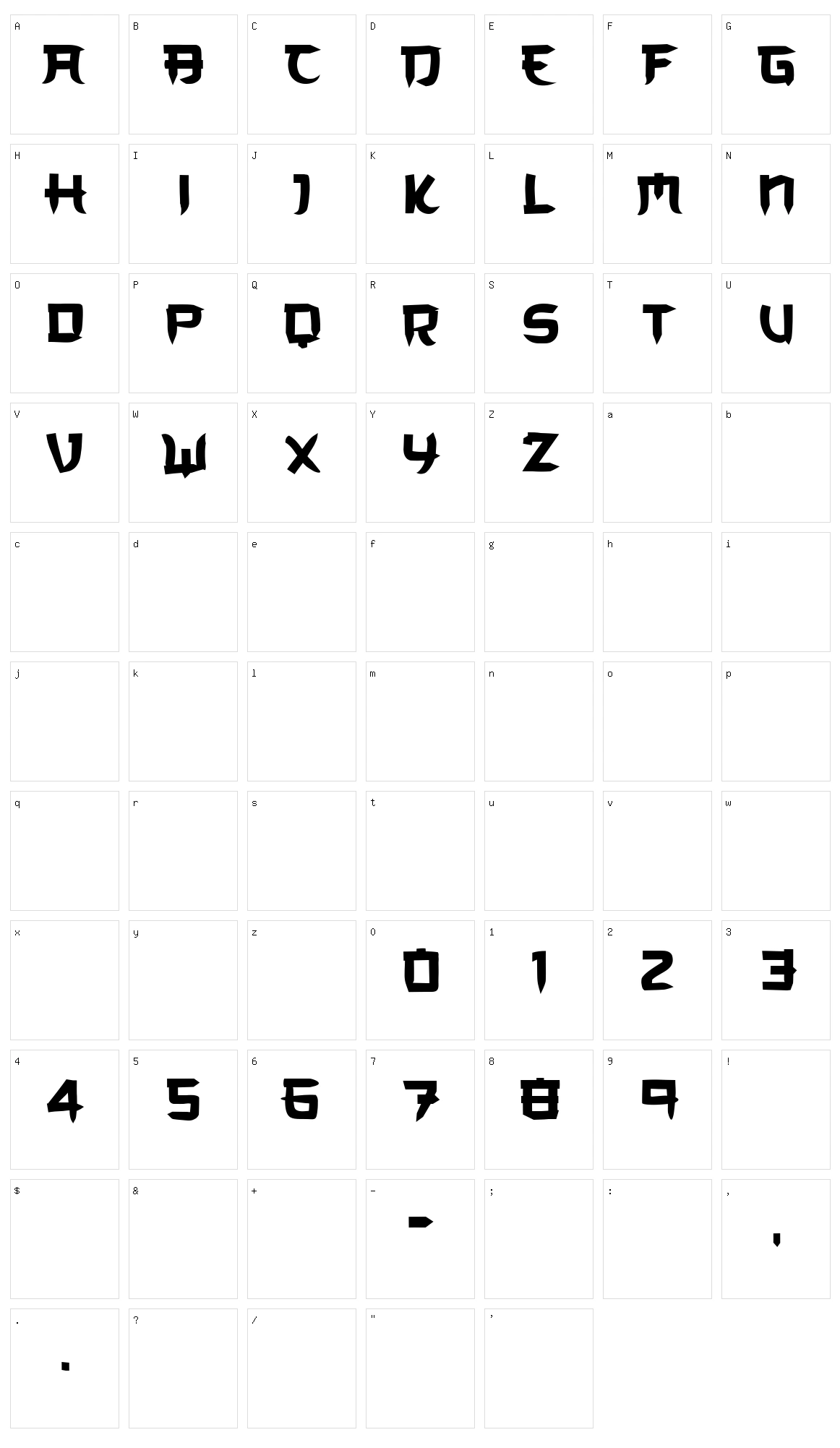
The free font CF Le Dernier Empereur is carefully designed by Cloutierfontes, showcasing a thoughtful balance of creativity and usability and falls under the Asian font style. When you download the ZIP file, it contains only 362.57 KB of font files, making it lightweight and quick to download. Please review the license details below to understand permitted usage and distribution rights. If license information is not available, we recommend using this font for personal projects only or contacting the author directly for commercial usage permissions.